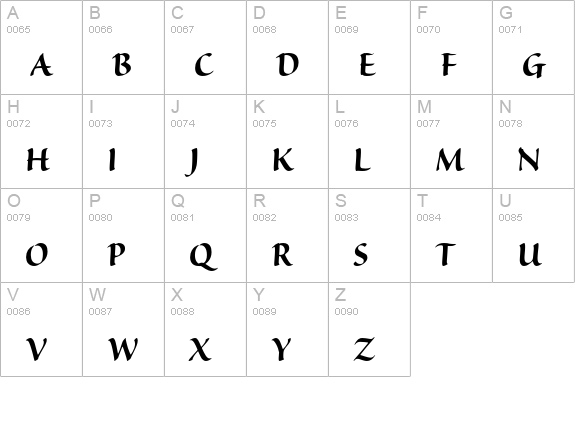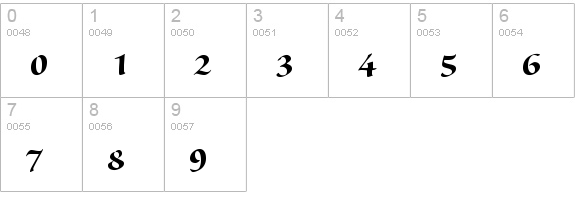
Sanvito Pro Bold Display Font Details
Sanvito Pro Bold Display is a strong, high-contrast variant in the Sanvito typeface family \xE2\x80\x94 well suited to headlines, attention-grabbing titles, and strong calls-to-action.
Sanvito Pro Bold Display font is a stunning and eye-catching typeface that is sure to make a bold statement. With its strong and confident letterforms, this font is perfect for headlines, titles, and any other application where you want to grab attention. The bold weight of Sanvito Pro Bold Display font adds a level of intensity and impact to any design, making it ideal for projects that require a strong visual presence. Whether you are designing a poster, a logo, or a website, this font will command attention and leave a lasting impression. The design of Sanvito Pro Bold Display font is modern and sleek, with clean lines and well-defined shapes. The letterforms are bold and legible, ensuring that your message will be clear and easily read. The font also includes a wide range of characters, including punctuation, symbols, and accents, allowing you to create designs in multiple languages. One of the best things about Sanvito Pro Bold Display font is that it is freely available to download at FontsMarket.com. This means that you can start using this amazing font in your designs right away, without having to worry about any licensing restrictions or fees. Simply visit FontsMarket.com, locate the font, and click the download button to start using it in your projects. Whether you are a graphic designer, a web developer, or a digital artist, Sanvito Pro Bold Display font is a versatile and powerful tool that will elevate your designs to new heights. Its bold and impactful letterforms, combined with its modern and sleek design, make it the perfect choice for any project that demands attention and professionalism. Download Sanvito Pro Bold Display font today from FontsMarket.com and unlock the full potential of your designs. With this font, you will have the freedom to create stunning and eye-catching visuals that will captivate your audience and leave a lasting impression.